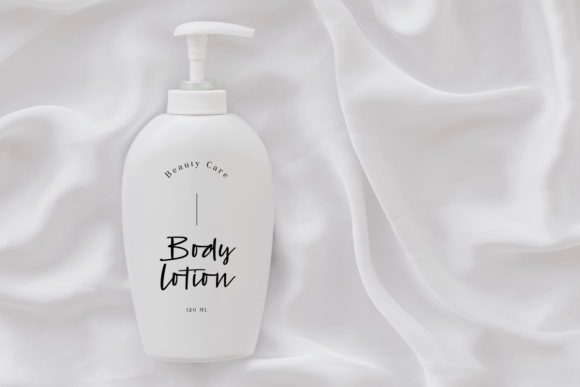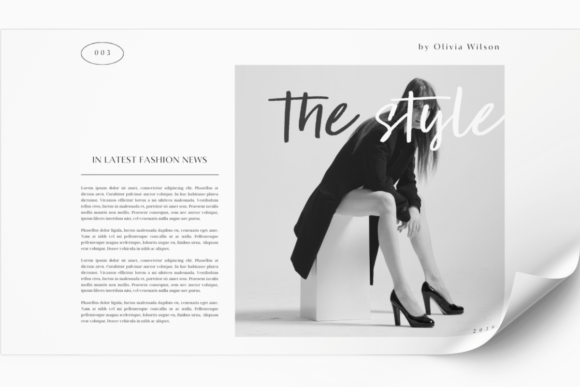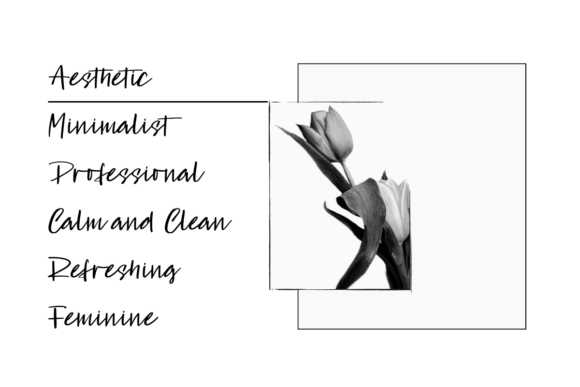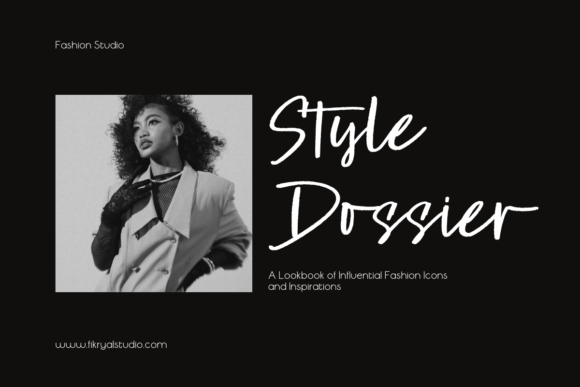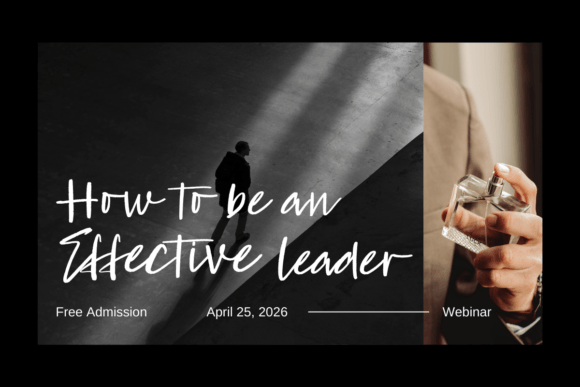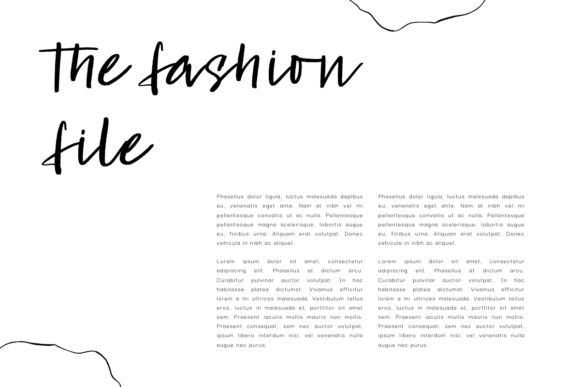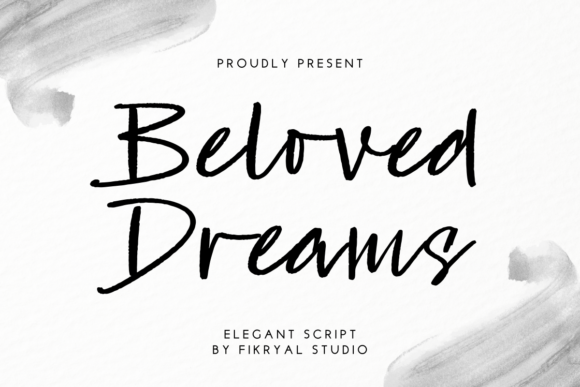
Introducing Beloved Dreams Font: Elevate Your Designs with Elegance and Sophistication
In the world of typography, a well-crafted font can make all the difference in elevating your designs from ordinary to extraordinary. For those seeking an elegant and refined script font with a natural, handwritten feel, look no further than Beloved Dreams Font. This stunning typeface is meticulously designed to bring a touch of classic beauty and modern sophistication to a wide range of creative projects, from invitations and greeting cards to branding and cosmetic labels.
The Beauty of Beloved Dreams Font
Beloved Dreams Font is characterized by its flowing, cursive lines and delicate strokes, which give it a distinctly elegant and refined appearance. The design expertly balances classic elements with a modern feel, making it an ideal choice for designers and crafters looking to add a touch of sophistication to their work. Whether you’re creating wedding invitations, branding materials for a cosmetic company, or simply looking for a beautiful font to enhance your digital content, Beloved Dreams Font is sure to impress.
Key Features of Beloved Dreams Font
- Elegant Script Design: Beloved Dreams Font boasts a beautiful, cursive script design that adds a touch of elegance and refinement to any project.
- Natural Handwritten Feel: The font’s natural, handwritten feel gives it a warm and inviting appearance, perfect for creating a personal connection with your audience.
- High Detail Rendering: Each character in Beloved Dreams Font is rendered in high detail, ensuring optimal readability and a captivating visual appeal.
- Versatile: This font is suitable for a wide range of creative projects, including invitations, greeting cards, branding, and more.
- Classic yet Modern: The design of Beloved Dreams Font skillfully combines classic beauty with a modern feel, making it perfect for cosmetic brands and other branding needs.
Beloved Dreams Font is an excellent choice for designers and crafters looking to elevate their work with a touch of elegance and sophistication. Whether you’re creating digital content, print materials, or handmade crafts, this font is sure to enhance your designs and leave a lasting impression on your audience. Its versatility and beauty make it an invaluable addition to any designer’s or crafter’s toolkit.
Using Beloved Dreams Font in Your Projects
Incorporating Beloved Dreams Font into your projects is easy and straightforward. Here are a few ideas to get you started:
- Wedding Invitations: Add a touch of romance and elegance to your wedding invitations with Beloved Dreams Font.
- Cosmetic Branding: Elevate your cosmetic brand with a sophisticated and refined font that exudes luxury and quality.
- Greeting Cards: Create beautiful and heartfelt greeting cards for special occasions using Beloved Dreams Font.
- Digital Content: Enhance your digital content, such as blog posts and social media graphics, with a touch of elegance and sophistication.
Beloved Dreams Font is a stunning and versatile script font that is sure to elevate your designs and add a touch of elegance and sophistication. With its natural handwritten feel, classic beauty, and modern appeal, this font is perfect for a wide range of creative projects. Whether you’re a designer, crafter, or simply someone looking to enhance your digital content, Beloved Dreams Font is an excellent choice. So why wait? Download Beloved Dreams Font today and discover the difference it can make in your work.